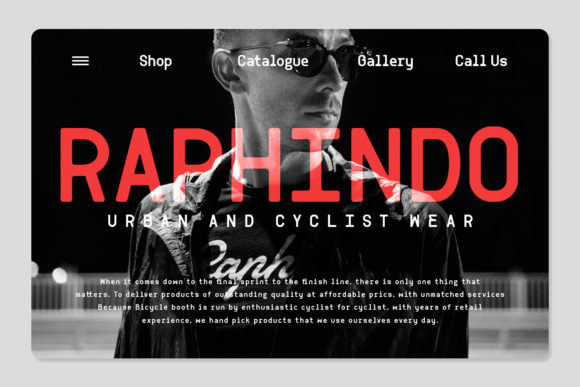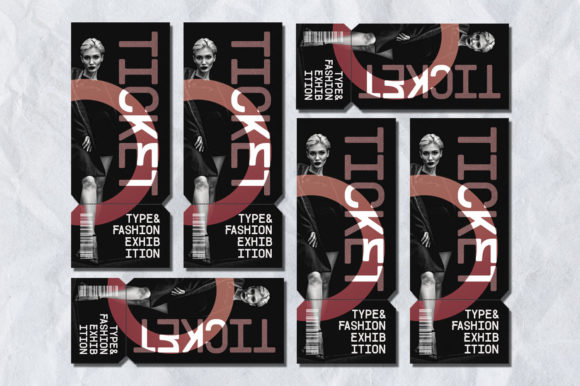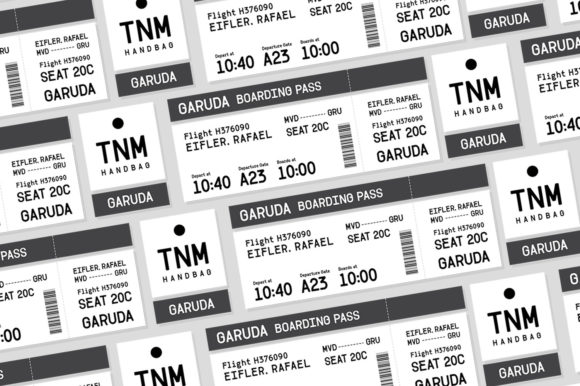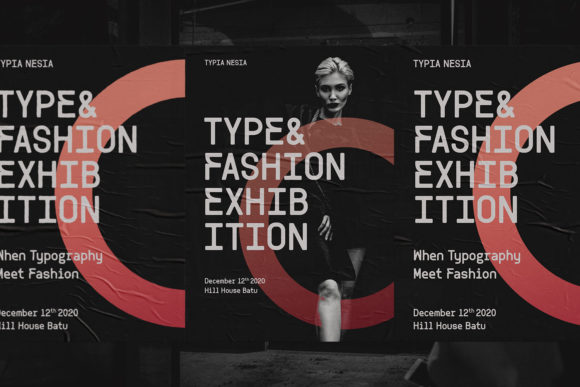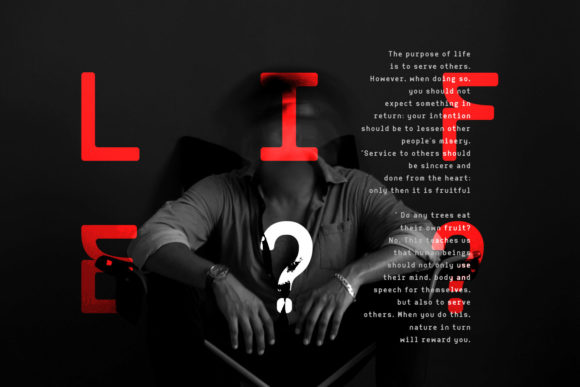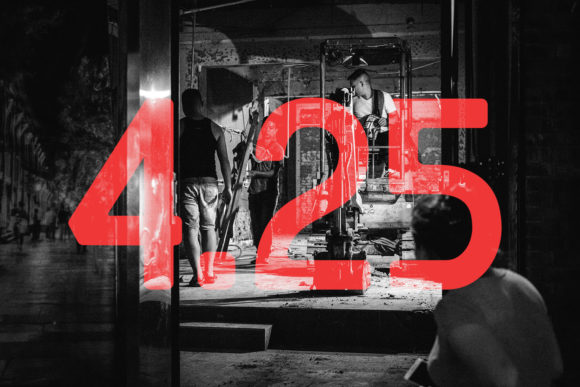
Introduction to Nicolatte Font
Have you ever stared at a blank canvas, wondering how to bring your creative vision to life? We’ve all been there – the excitement of starting a new project, the pressure to make it perfect, and the frustration when it just doesn’t seem to come together. But what if I told you there’s a secret to unlocking your creative potential? Enter the Nicolatte Font, a stunning sans serif font that’s about to revolutionize your DIY projects.
The Power of Nicolatte Font
As a designer, you know how crucial it is to have access to high-quality design resources. That’s where the Nicolatte Font comes in – a gorgeous, unique font that’s perfect for adding a personal touch to your creative projects. With its transparent background and crisp lines, this font is a game-changer for anyone looking to elevate their design game. And the best part? It’s available for free download, making it an invaluable addition to any designer’s toolkit.
Key Features of Nicolatte Font
- High-quality design resource with a unique, elegant style, perfect for creative projects.
- Features a transparent background, allowing for seamless integration into designs.
- Includes a range of characters, including uppercase and lowercase letters, numbers, and punctuation.
- Supports a variety of languages, making it a versatile design resource.
Honest Review: Nicolatte Font
I recently stumbled upon the Nicolatte Font while searching for a unique design resource for my creative project. The font offers a beautiful, high-quality aesthetic that’s perfect for various design applications.
What works well: ✨ The Nicolatte Font has a unique and elegant design, making it perfect for projects that require a touch of sophistication. The font is available for free download, which is a great bonus for designers on a budget. Additionally, the transparent background option provides flexibility when working with different design elements.
- Beautiful and elegant design
Limitations: ⚠️ While the Nicolatte Font is a great design resource, it may not be suitable for projects that require a bold or playful font style. Additionally, the font may not be as versatile as some other high-quality fonts on the market.
Overall, I’m impressed with the Nicolatte Font and would recommend it to designers looking for a high-quality, elegant font for their creative projects. With its unique design and transparent background option, it’s a great addition to any design resource library.
The Nicolatte Font is suitable for a variety of creative projects, including logos, graphics, presentations, and documents. Its high-quality design and transparent background make it a versatile resource for designers and non-designers alike.